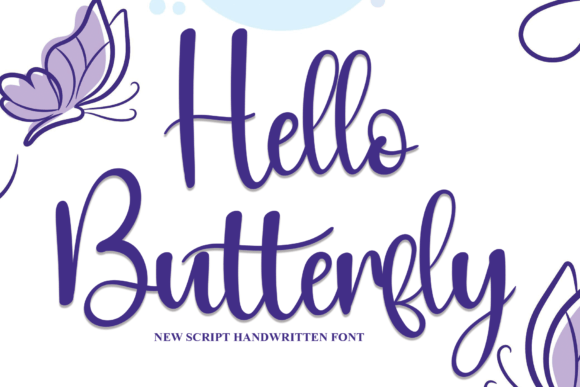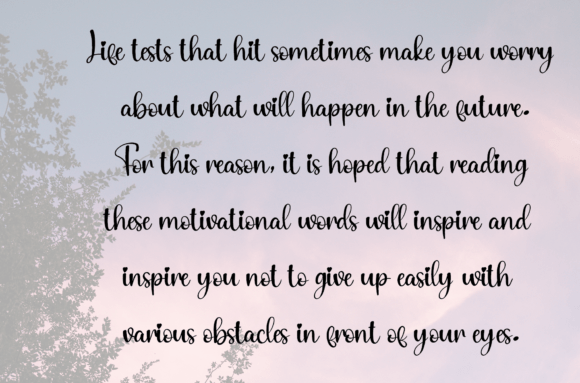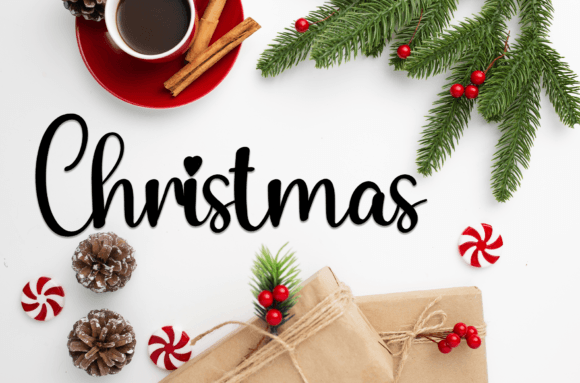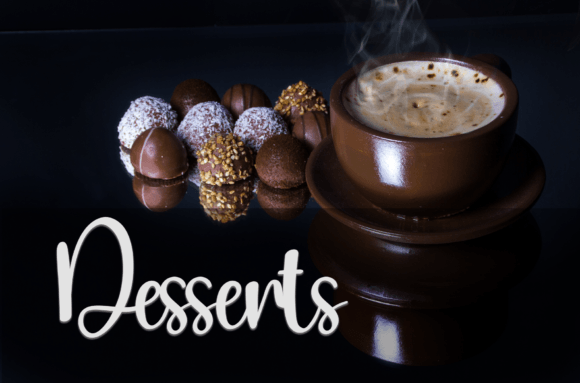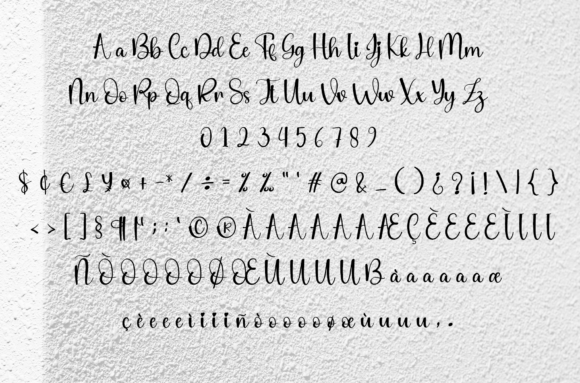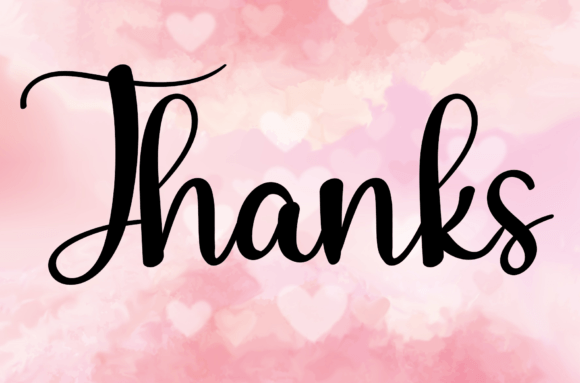
Hello Butterfly Font
About Hello Butterfly Font
Hello Butterfly font is a warm and friendly handwritten typeface thoughtfully crafted to become a favorite in your font collection. Its inviting and natural style brings a handcrafted feel to your designs, making it ideal for a wide variety of creative projects. Whether you’re designing invitations, branding, social media graphics, or personal crafts, Hello Butterfly font adds a lively and personal touch that enhances your work.
Warm and Inviting Handwriting Style
The appeal of Hello Butterfly font lies in its smooth, flowing strokes and approachable letterforms. It perfectly balances readability with personality, ensuring that your message is clear while adding warmth and authenticity. The font’s versatile design fits both modern and classic themes, giving your projects a timeless, charming look.
Versatile Applications of Hello Butterfly Font
Hello Butterfly font is great for various creative uses, including:
• Wedding invitations and greeting cards
• Brand logos and stationery
• Social media content and marketing materials
• Personal notes and artistic lettering
• Flyers, posters, and printed media
Thanks to its friendly and adaptable nature, Hello Butterflyfont works well in both digital and print formats, preserving its charm across platforms.
Adding Personality and Warmth to Designs
Using Hello Butterfly fon infuses your designs with warmth and personality. Its handwritten style helps build a connection with your audience, making your messages feel genuine and heartfelt. This font adds a unique character that brings your creative projects to life.
Why Choose Hello Butterfly Fon?
• Friendly and legible handwritten style
• Smooth and clear letterforms
• Versatile for a range of creative projects
• Adds warmth and personal charm
• Suitable for both print and digital use
Final Thoughts on Hello Butterfly Font
In summary, Hello Butterfly fon is a friendly and charming handwritten typeface perfect for wedding invitations, branding, social media, and more. Its warm, lively style makes it a valuable asset for designers seeking to add personality and charm to their projects.